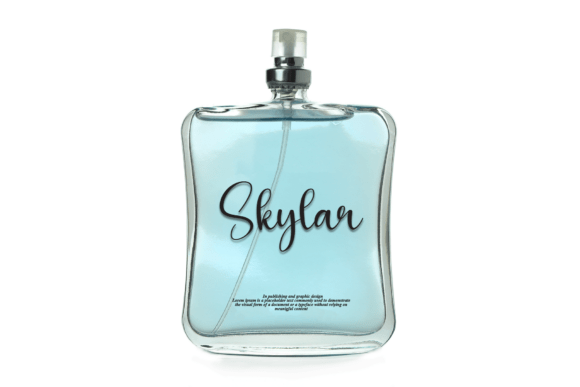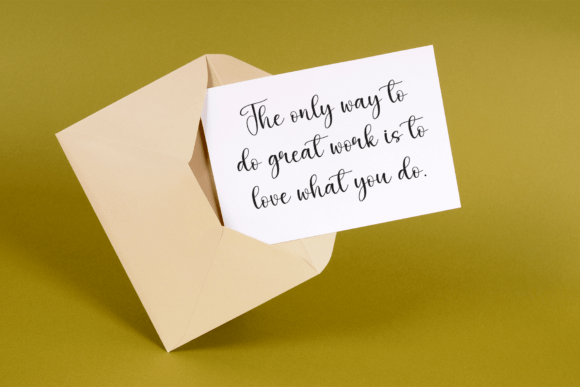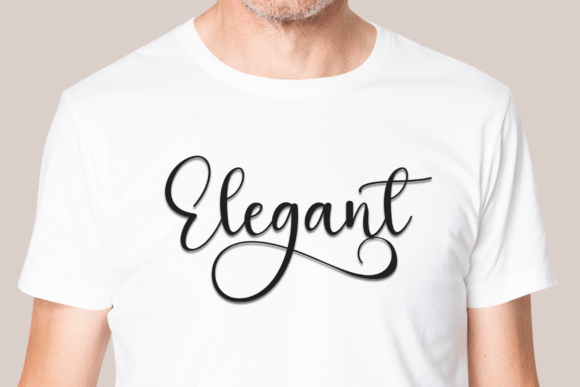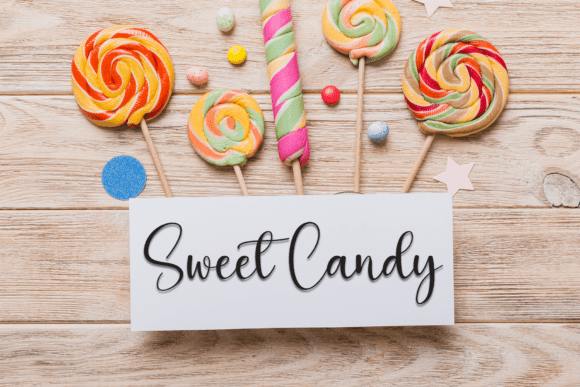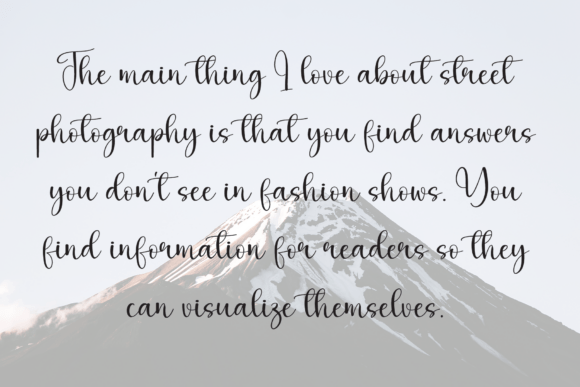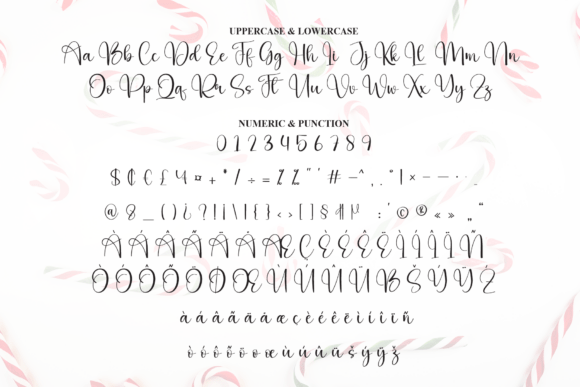
Candycane Font: A Sweet and Festive Handwritten Script Font for the Holiday Season
The holiday season is upon us, and with it comes the need for festive and fun designs that capture the spirit of Christmas. If you’re a designer, crafter, or DIY enthusiast looking for a font that embodies the whimsy and cheer of the season, look no further than the Candycane Font. This sweet and festive handwritten script font is bursting with holiday cheer, making it perfect for Christmas cards, seasonal packaging, party invites, and all things merry and bright.
What is Candycane Font?
Candycane Font is a carefully crafted handwritten script font that is designed to evoke the magic and wonder of the holiday season. With its whimsical swashes and playful spirit, this font is sure to add a touch of festive fun to any design project. Whether you’re creating Christmas cards, holiday gift tags, or seasonal packaging, Candycane Font is the perfect choice for designers and crafters looking to add a dash of holiday cheer to their work.
Key Features of Candycane Font
So, what makes Candycane Font so special? Here are just a few of its key features:
- Whimsical Swashes: Candycane Font features beautiful, flowing swashes that add a touch of elegance and sophistication to any design.
- Playful Spirit: This font has a playful, carefree spirit that’s perfect for capturing the fun and magic of the holiday season.
- Handwritten Script: Candycane Font is a handwritten script font, giving it a personal and unique touch that’s perfect for adding a human element to your designs.
- Festive and Fun: This font is designed to be festive and fun, making it perfect for Christmas cards, holiday gift tags, and other seasonal designs.
Uses for Candycane Font
So, how can you use Candycane Font in your design projects? The possibilities are endless! Here are just a few ideas to get you started:
- Christmas Cards: Create beautiful, one-of-a-kind Christmas cards that are sure to delight your friends and family.
- Seasonal Packaging: Add a touch of festive fun to your holiday packaging with Candycane Font.
- Party Invites: Create festive and fun party invites that set the tone for a merry and bright celebration.
- Holiday Gift Tags: Add a personal touch to your holiday gift tags with Candycane Font.
- Social Media Graphics: Create festive and fun social media graphics that capture the spirit of the holiday season.
Tips for Using Candycane Font
Here are a few tips for getting the most out of Candycane Font:
- Experiment with Colors: Candycane Font looks great in a variety of colors, so don’t be afraid to experiment and find the perfect hue for your design.
- Play with Swashes: The swashes in Candycane Font are a key feature, so be sure to play with them to add movement and interest to your design.
- Mix and Match: Candycane Font pairs well with a variety of other fonts, so don’t be afraid to mix and match to create a unique look.
Candycane Font is a sweet and festive handwritten script font that’s perfect for adding a touch of holiday cheer to your design projects. With its whimsical swashes and playful spirit, this font is sure to capture the magic and wonder of the holiday season. Whether you’re a designer, crafter, or DIY enthusiast, Candycane Font is a must-have for anyone looking to create festive and fun designs that are sure to delight. So why wait? Download Candycane Font today and start creating your own merry and bright designs!